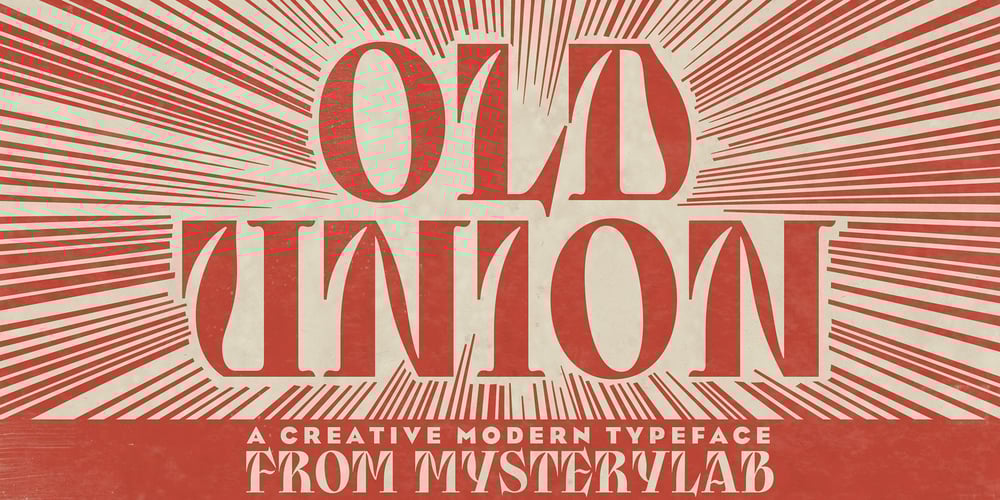
Old Union
Old Union font
Old Union Font Family was designed by Mott Jordan and published by Mysterylab. Old Union contains 2 styles and family package options. Old Union is a unique and creative modern font that is eye-catching and versatile. Elements of the design strongly reference Cyrillic typefaces of the early Soviet era, but with a distinctly modern look. Excellent for many uses including posters, banners, and logos. This design straddles the line between Didone-style elegance and vintage agit-prop. There are two variations in this package: Regular and Oblique.